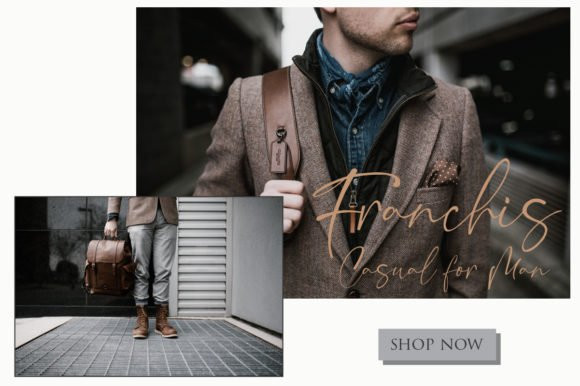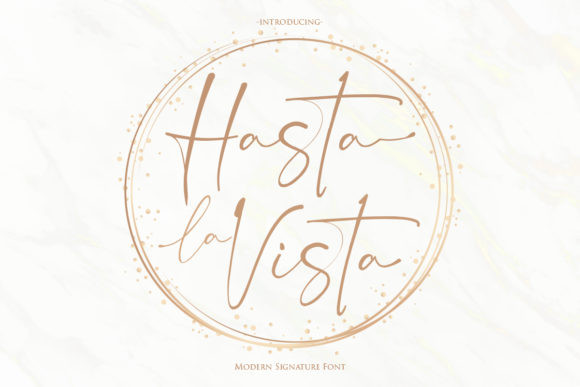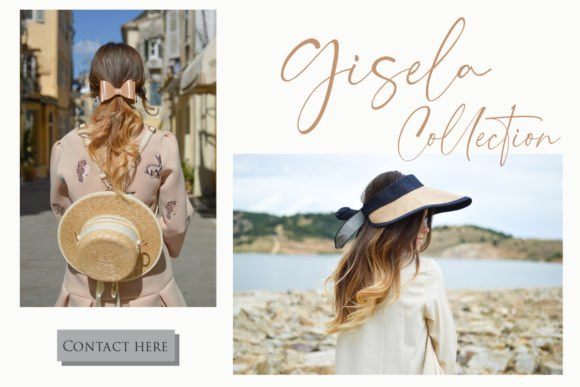
Hasta La Vista Font
Hasta La Vista is a modern and elegant signature script with incredibly authentic lettering. Fall in love with its spacious and rich curves!